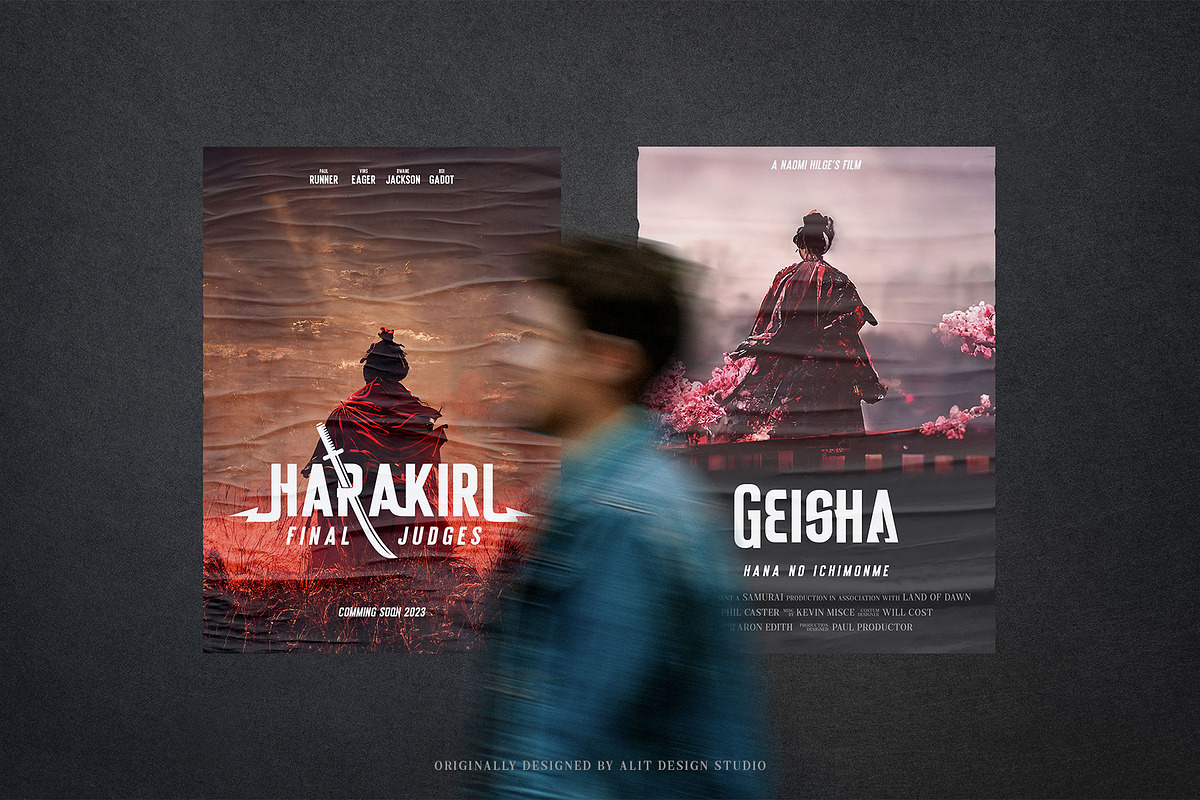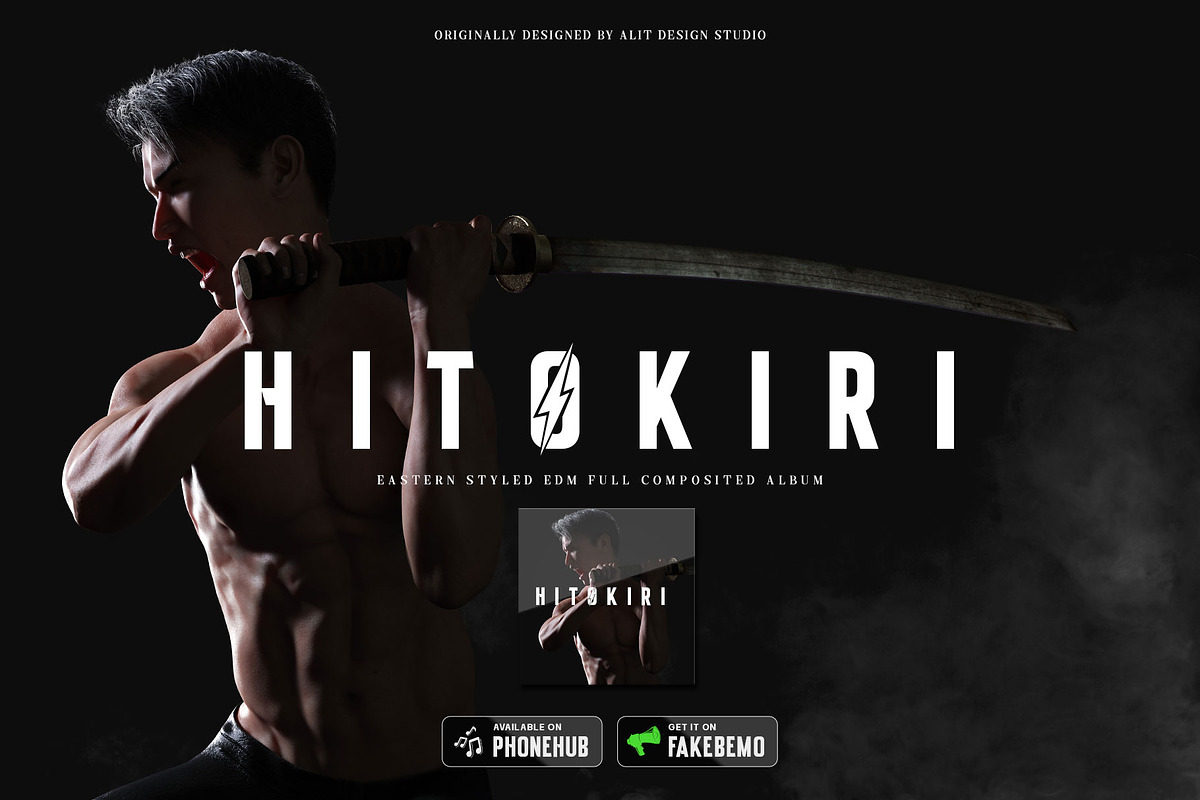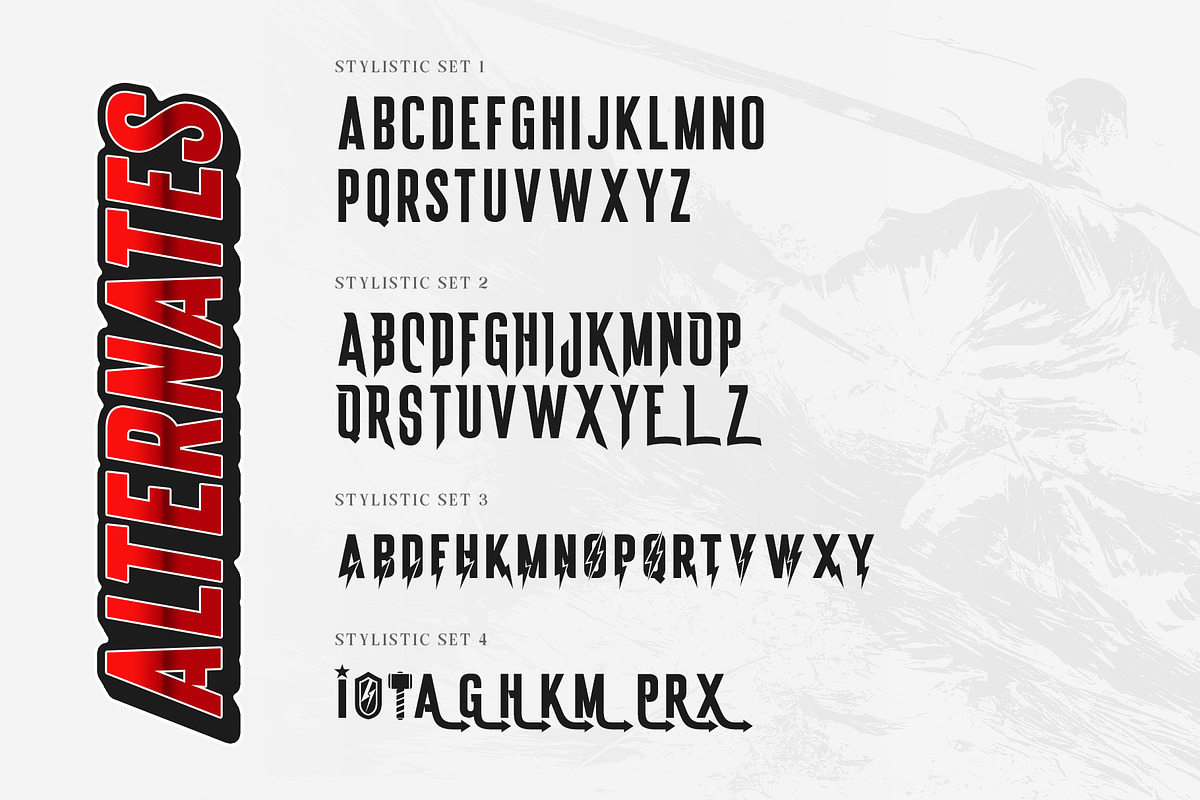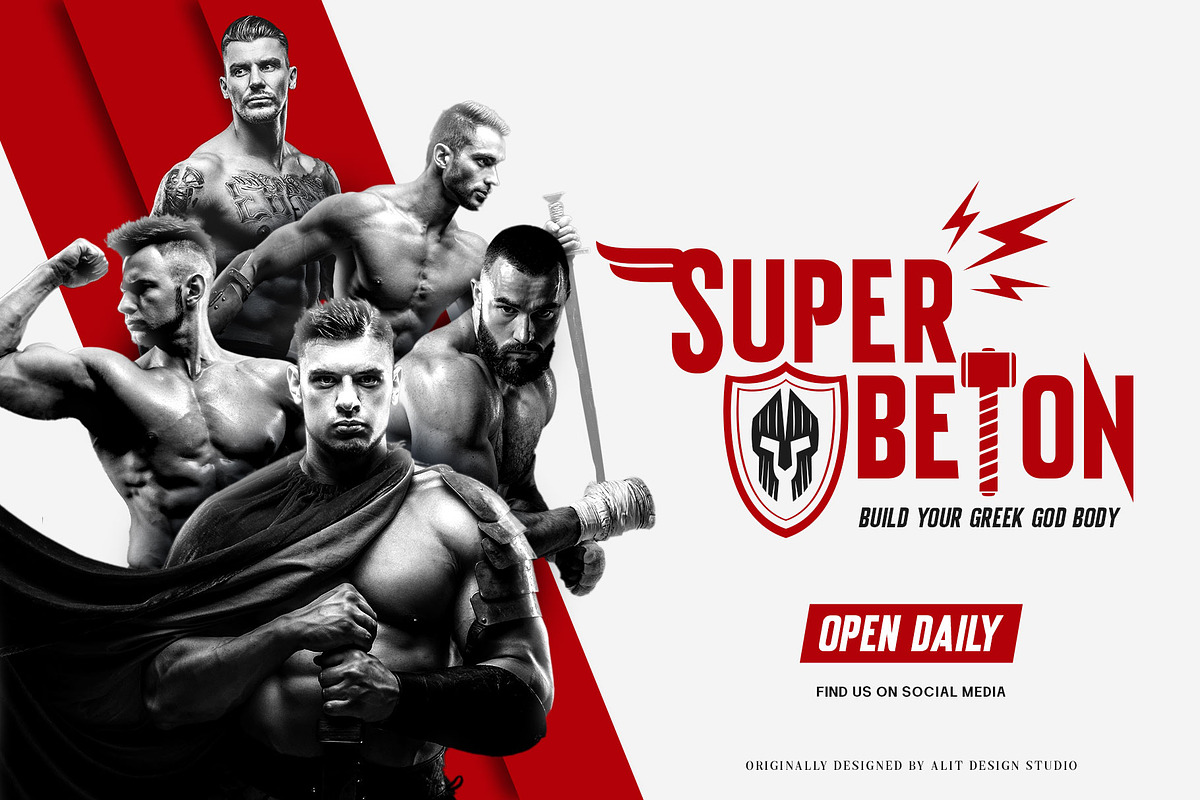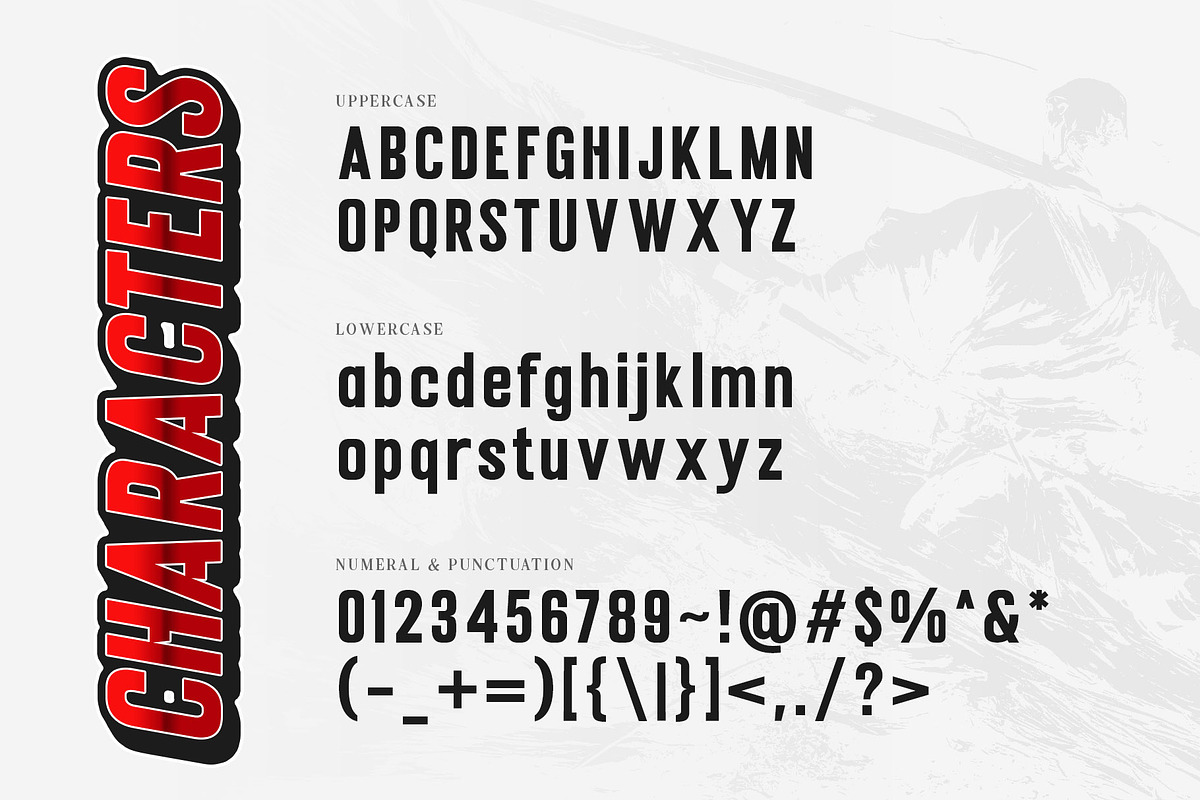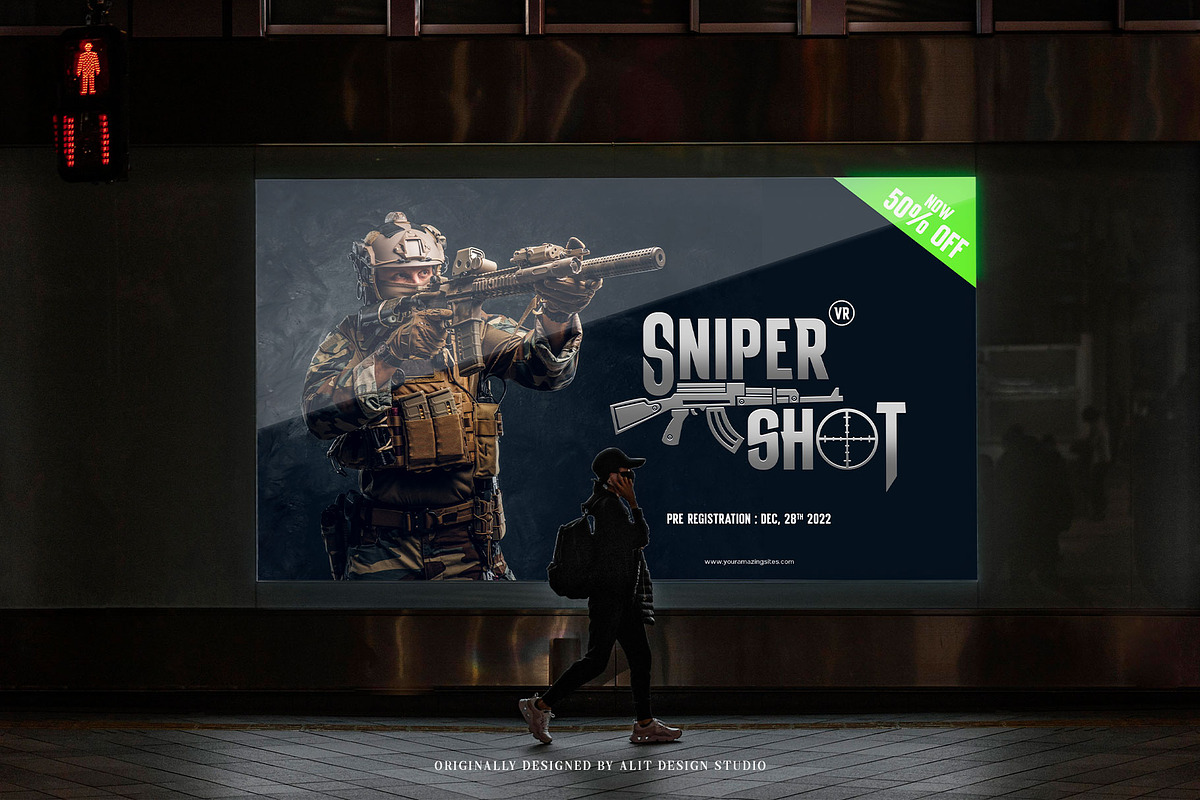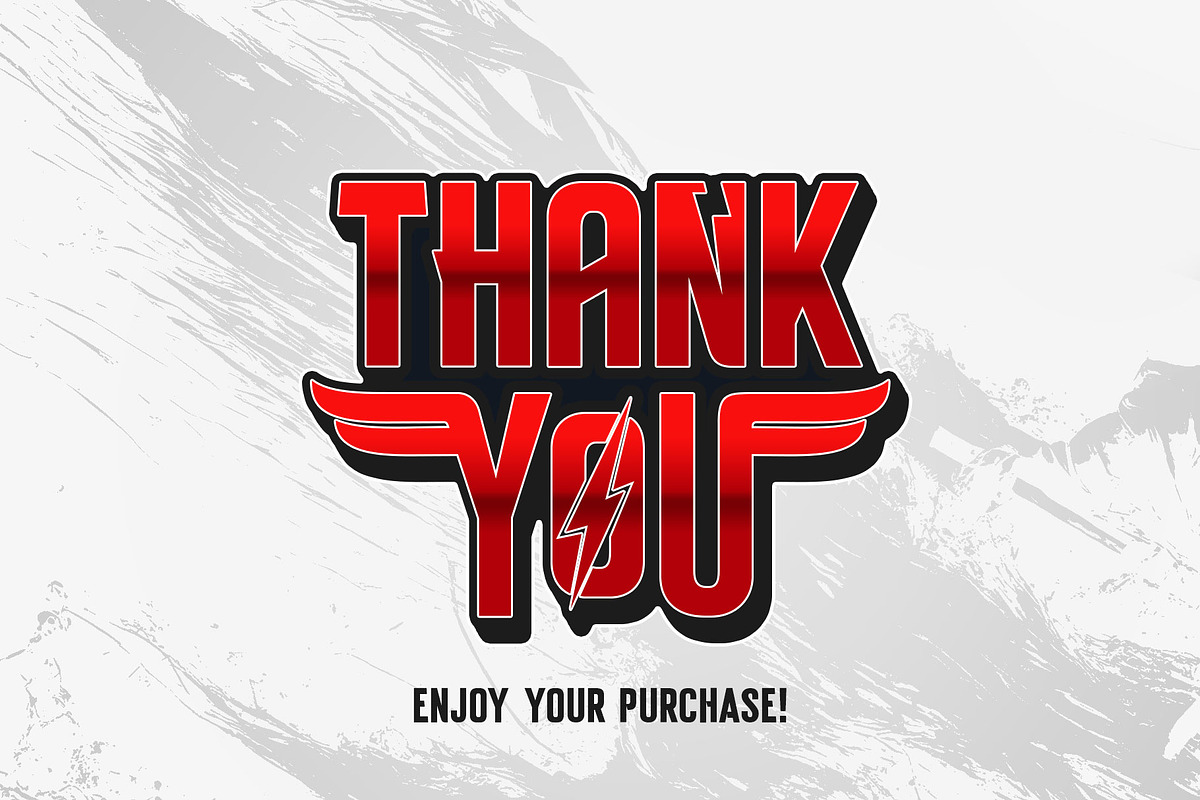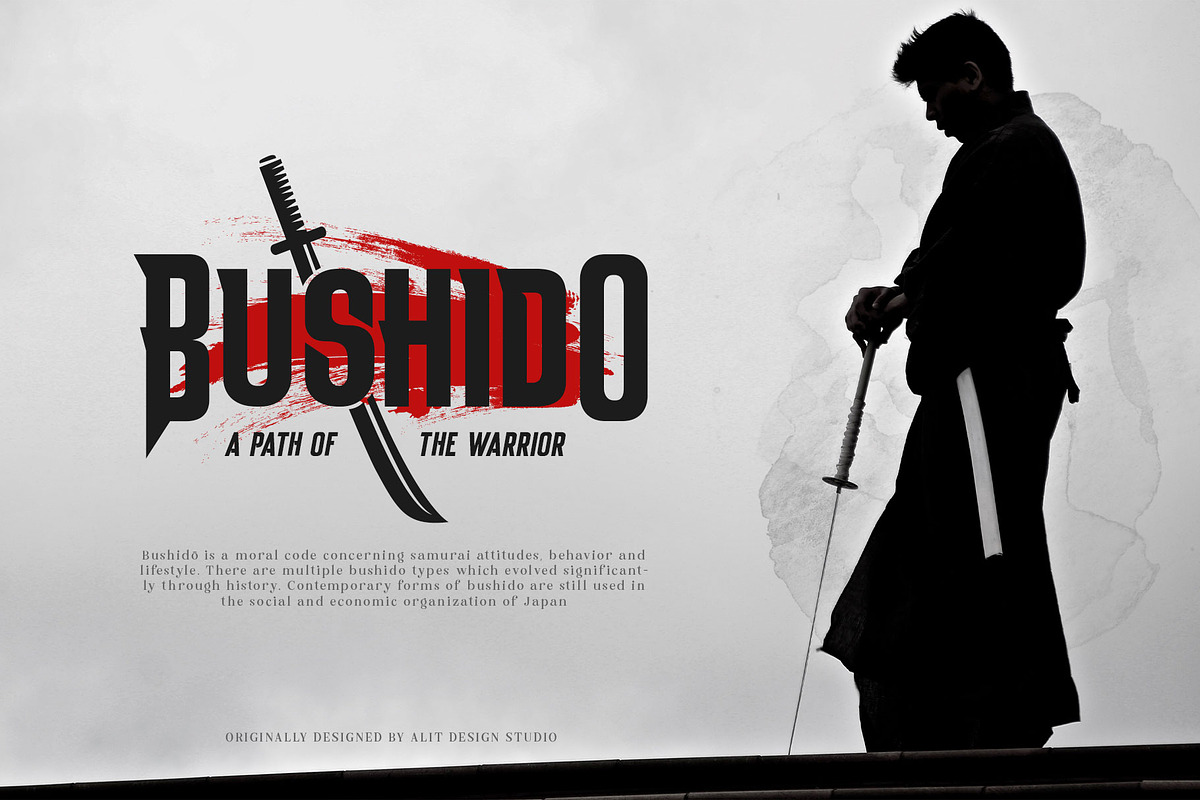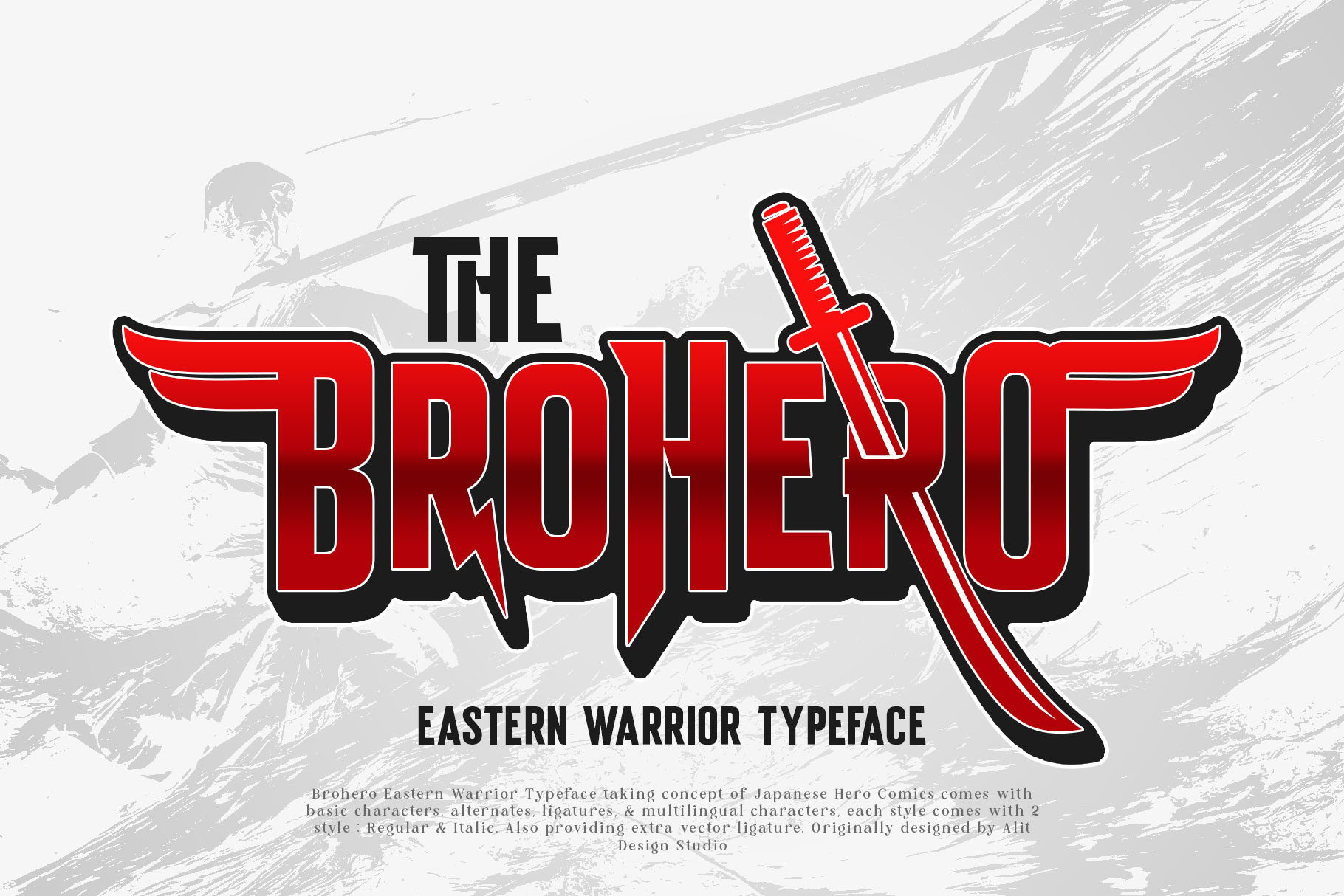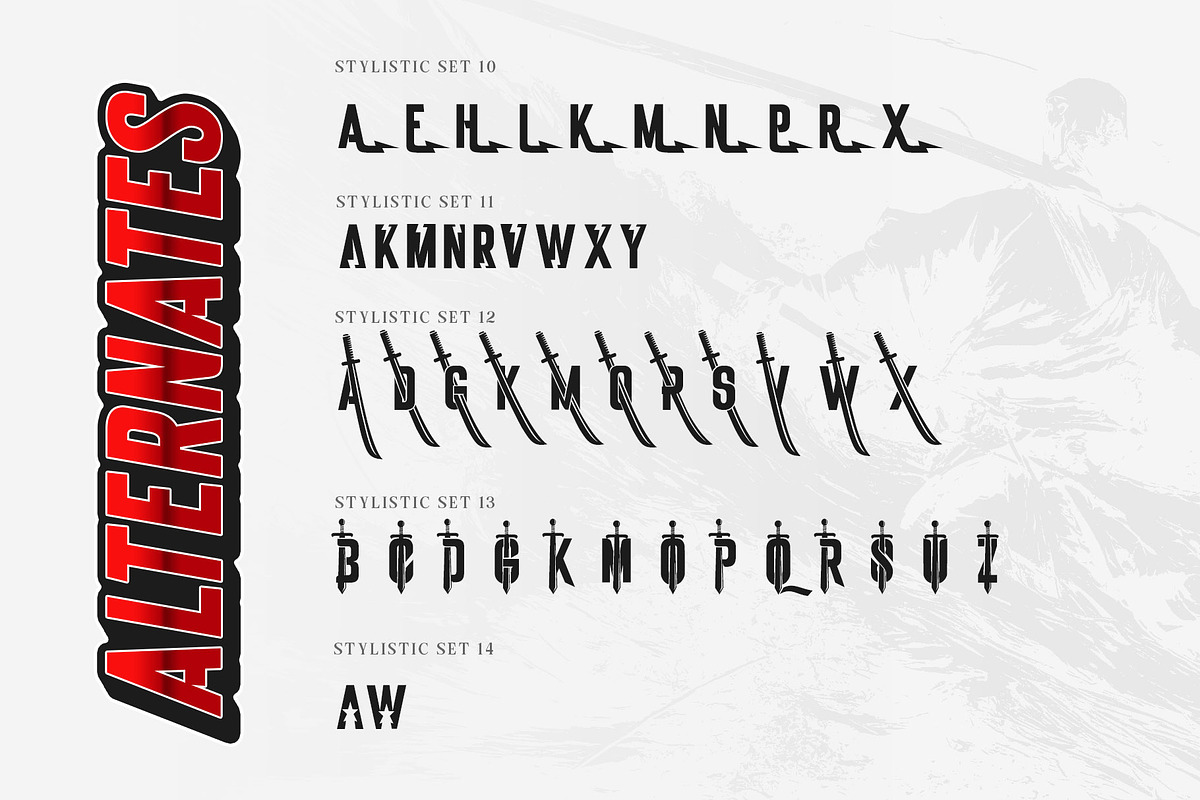
Brohero Typeface
Presenting ⚔️The Brohero Typeface⚔️ by alitdesign.
The Brohero font is inspired by action movie posters with the theme of war or knights in the Japanese Samurai. The bold character of The Brohero font is perfect for making hero movie titles, game titles, logotypes, t-shirt designs and so on with heroic themes.
Apart from the regular font, the Brohero also has an italic style which makes the design more dynamic and cool. The Brohero font has alternatives that you can combine between swashes and symbols that have the theme of heroes and war. Besides that this font is very easy to use both in design and non-design programs because everything changes and glyphs are supported by Unicode (PUA).
The Brohero Typeface has a total of 789 glyphs including symbol, multilingual.
Language Support : Latin, Basic, Western European, Central European, South European,Vietnamese.